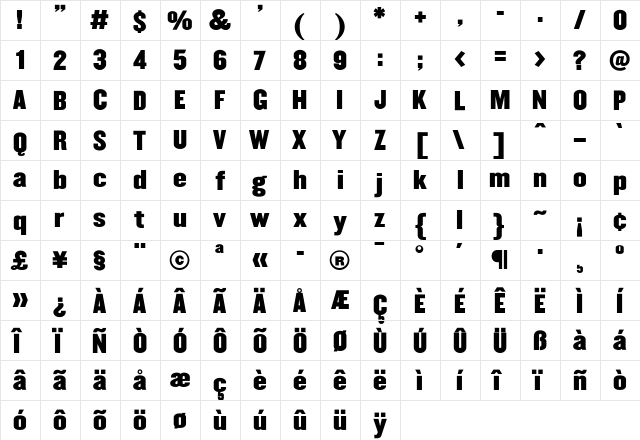
Champion Medium
Design Context for Champion Typeface
Champion takes a measured approach to typography — its balanced proportions and neutral character make it a reliable workhorse for both digital and print work.